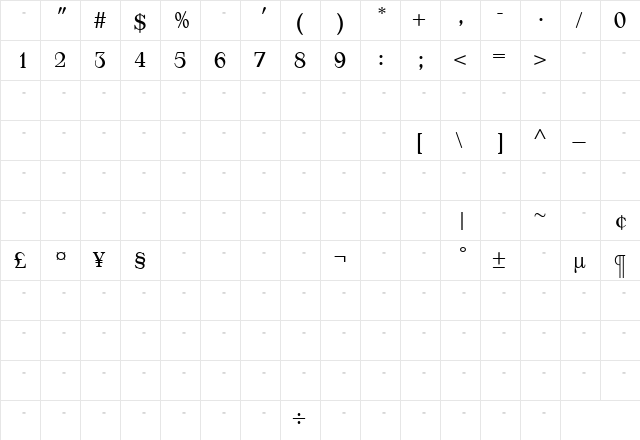
AppleyardLightTab Medium Font Preview
AppleyardLightTab Medium
Design Context for AppleyardLightTab Typeface
AppleyardLightTab is a composed and adaptable typeface that performs quietly and consistently across a wide range of design contexts. Its slender proportions lend an understated elegance to any composition.